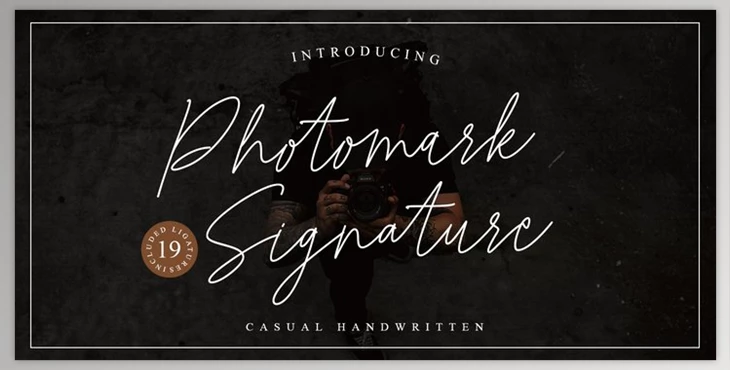
Photomark Signature Font - MyFonts:
Photomark Signature is a Casual and elegant Signature font. It has a distinctive style and design with lowercase and uppercase characters and is ideal to be used for signatures, branding wedding designs, card designs logos, watermarks, logos, and more.
Signed by Photomark includes all lowercase and uppercase letters, punctuation marks, numerals, and ligatures.
What is a Photomark Signature?
Fonts often have unique names associated with their creators or foundries, and they can be used for various design purposes, including signatures, branding, or creative projects.